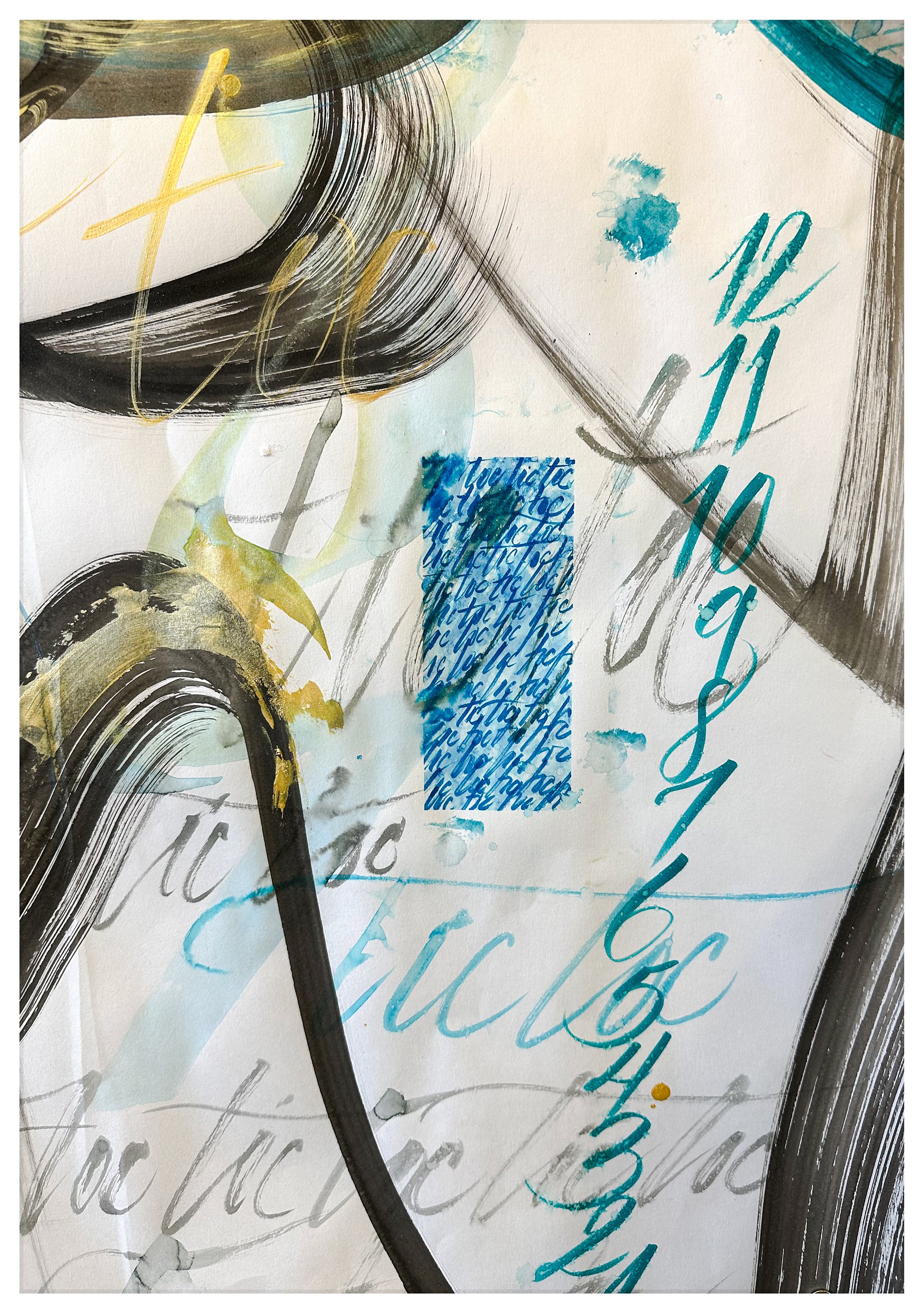
ALMA HOFFMANN | TICTOC
TITLE | TICTOC
MEDIUM | Watercolor and ink on mixed media paper
Inspired by the song Tiempo de Vals by Jesús María Cano and performed by Chayanne in late summer 1990, TICTOC translates musical memory into visual rhythm. Sweeping gestures and ink traces capture the nostalgic cadence of the waltz, turning sound into movement across an expansive surface.
About the Artist
Alma Hoffmann
Alma Hoffmann is a lettering artist and designer based in Alabama, USA. Although she began practicing calligraphy at a young age, her dedicated journey took shape in 2014, when she committed to a daily lettering and calligraphy practice. This ongoing discipline continues to sharpen her skills and fuel her exploration of new styles. Alma is drawn to a wide range of lettering and calligraphic traditions, as well as experimental typography and layout design shaped by curiosity and play.